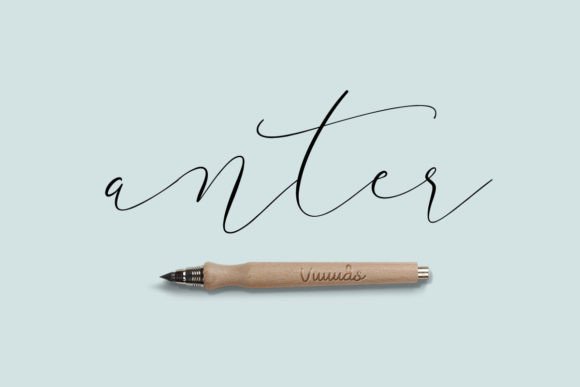
Introducing Anter Font, a modern script font embodying elegance and sophistication. Its carefully crafted letters bring a touch of charm to any project.
With its graceful curves and flowing strokes, Anter creates a captivating visual experience. Perfect for photography, watermarks, and quotes, it adds an artistic flair that will make your content stand out.
Anter is a versatile font that excels in diverse projects such as blog headers, posters, and wedding invitations. Its timeless design complements branding, logos, and fashion-related designs.
The PUA encoding of this font allows you to effortlessly access a wide range of glyphs and swashes, unlocking endless creative possibilities.
Elevate your designs with Anter Font and witness the transformation it brings to your projects. Its timeless beauty and modern appeal will leave a lasting impression.